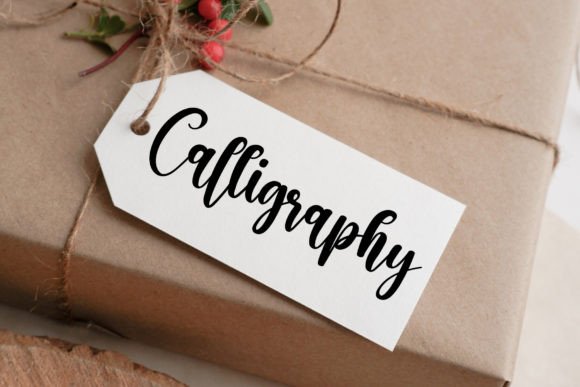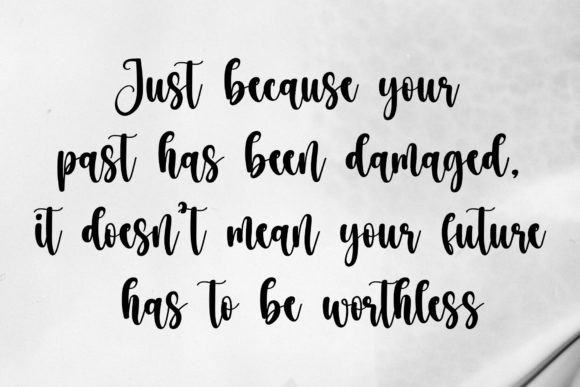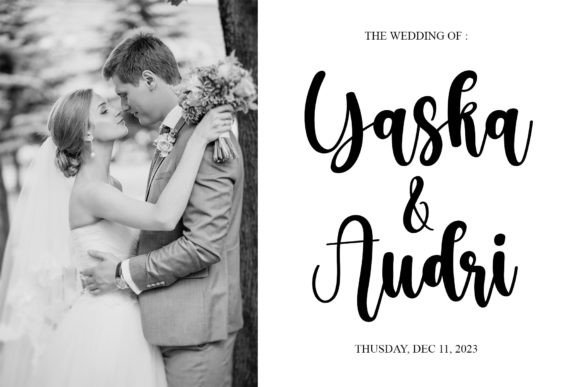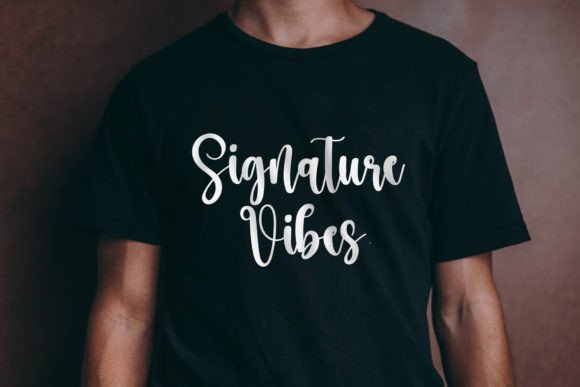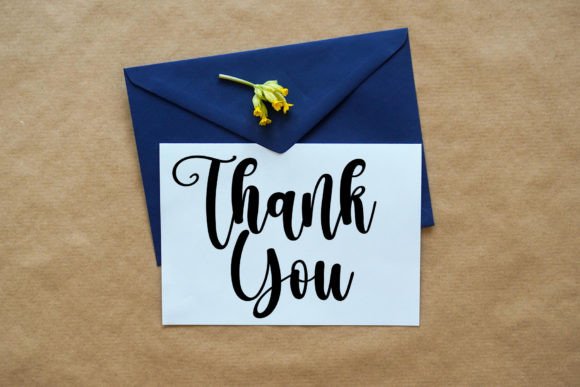
Introducing Eliminated Font: The Elegant and Delicate Handwritten Typeface for Your Design Needs
Are you a designer or crafter looking for a beautiful and versatile font to elevate your creative projects? Look no further than Eliminated Font, an elegant and delicate handwritten typeface that is perfect for a wide range of design applications. In this article, we’ll take a closer look at the features and benefits of Eliminated Font, and explore how it can help you take your designs to the next level.
What is Eliminated Font?
Eliminated Font is a stunning handwritten typeface that exudes elegance and sophistication. Its delicate lines and curves make it perfect for designs that require a touch of refinement and poise. Whether you’re creating logos and branding materials, social media posts, advertisements, business cards, wedding invitations, or product designs, Eliminated Font is the ideal choice.
Key Features of Eliminated Font
So, what makes Eliminated Font so special? Here are just a few of its key features:
• Elegant and delicate design: Eliminated Font boasts a beautiful, handwritten design that is both elegant and delicate. Its intricate lines and curves make it perfect for designs that require a touch of sophistication.
• PUA encoded: Eliminated Font is PUA (Private Use Area) encoded, which means that you can access all of the glyphs and alternates with ease. This makes it easy to customize your designs and create unique and eye-catching text.
• Versatile: Eliminated Font is incredibly versatile, and can be used for a wide range of design applications, from logos and branding to social media posts and product designs.
Design Applications for Eliminated Font
So, what can you use Eliminated Font for? The possibilities are endless! Here are just a few ideas to get you started:
• Logos and branding: Create a stunning logo or brand identity with Eliminated Font. Its elegant design makes it perfect for businesses that want to convey a sense of sophistication and refinement.
• Social media posts: Add a touch of elegance to your social media posts with Eliminated Font. Whether you’re creating graphics for Facebook, Instagram, or Twitter, this font is sure to make your content stand out.
• Advertisements: Create eye-catching advertisements with Eliminated Font. Its delicate design makes it perfect for ads that require a touch of sophistication and refinement.
• Business cards: Create professional and elegant business cards with Eliminated Font. Its intricate lines and curves make it perfect for designs that require a touch of poise and sophistication.
• Wedding invitations: Create beautiful and elegant wedding invitations with Eliminated Font. Its delicate design makes it perfect for wedding stationery and other wedding-related designs.
• Product design: Use Eliminated Font to create stunning product designs, from packaging to labels and more.
Why Choose Eliminated Font?
So, why should you choose Eliminated Font for your design needs? Here are just a few reasons:
• Unique and eye-catching: Eliminated Font is a unique and eye-catching typeface that is sure to make your designs stand out.
• Elegant and sophisticated: Its elegant and sophisticated design makes it perfect for designs that require a touch of refinement and poise.
• Versatile: Eliminated Font is incredibly versatile, and can be used for a wide range of design applications.
• Easy to use: With its PUA encoding, Eliminated Font is easy to use and customize, even for designers who are new to font design.
Font Name Eliminated Font
Author Bintang Studio
In conclusion, Eliminated Font is a beautiful and versatile handwritten typeface that is perfect for a wide range of design applications. Its elegant and delicate design, combined with its PUA encoding and versatility, make it an ideal choice for designers and crafters who want to create stunning and eye-catching designs. Whether you’re creating logos and branding materials, social media posts, advertisements, business cards, wedding invitations, or product designs, Eliminated Font is the perfect choice. So why wait? Download Eliminated Font today and start creating stunning designs that will leave a lasting impression!